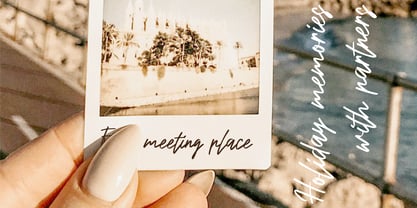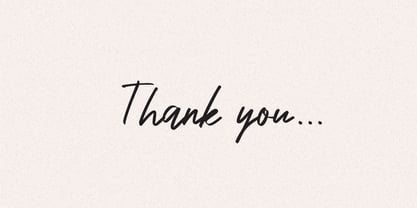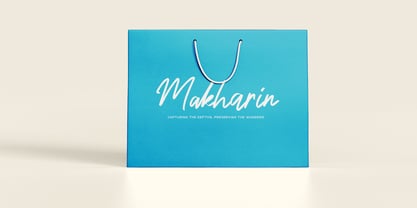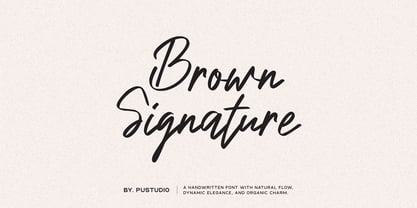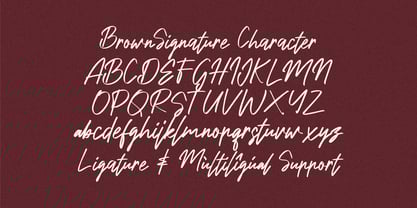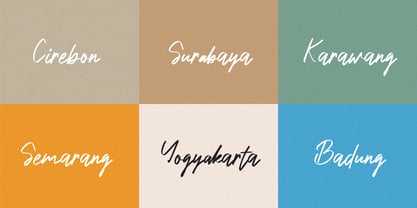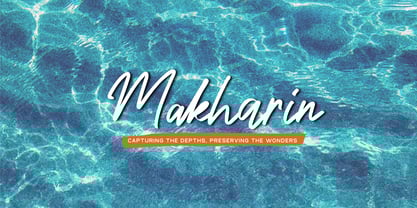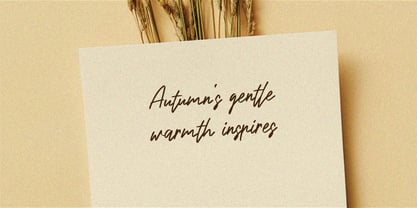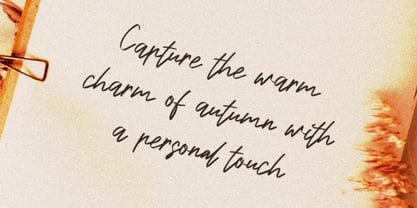
Brown Signature
by pustudio
The Brown Signature Font Family was designed by Haris Prawoto and published by pustudio. Brown Signature contains 1 styles.
BrownSignature is a beautiful script font featuring charming and elegant handwritten characters. Add this font to your most creative ideas, and see how it makes it stand out!
Designers: Haris Prawoto
Publisher: pustudio
Foundry: pustudio
Design Owner: pustudio